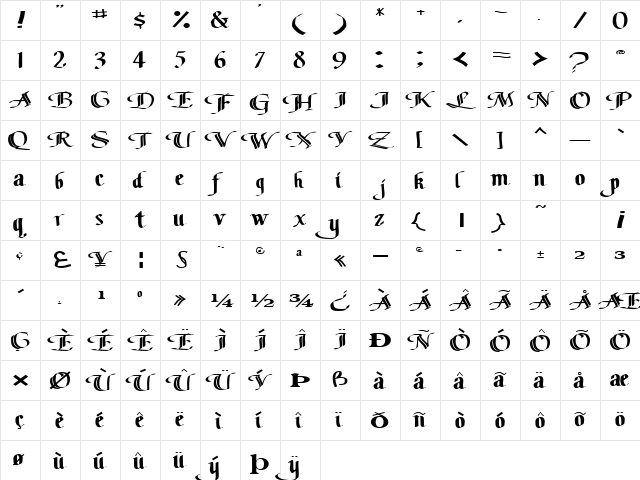
ClassicFont104 Regular
Design Context for ClassicFont104 Typeface
ClassicFont104 has the warm character of retro typography — evoking diners, record sleeves, and the golden age of print advertising.
Font Pairing: Combine ClassicFont104 with a simple slab or neutral sans — period-accurate companions reinforce the vintage feel without competing for attention.
Pro Tip: Lean into ClassicFont104's period character by pairing it with aged paper textures, muted colour palettes, and vintage illustration styles.